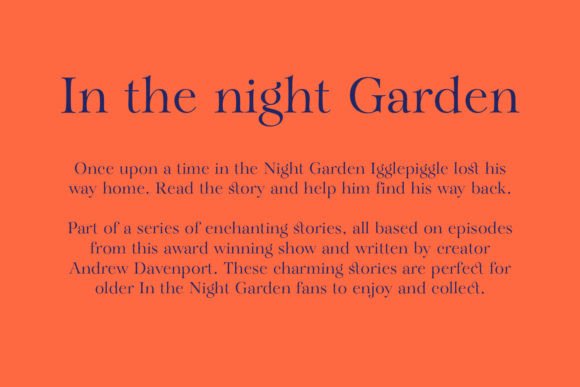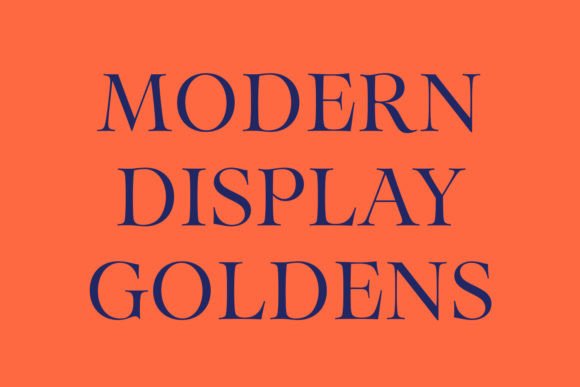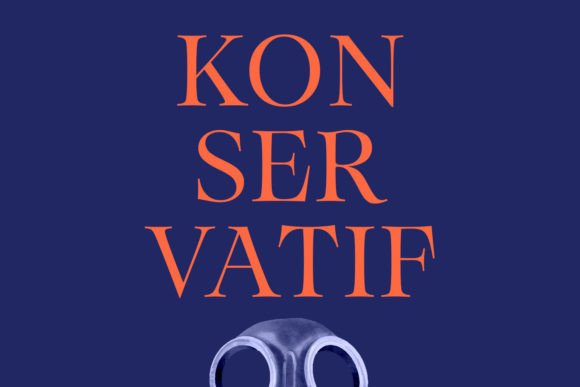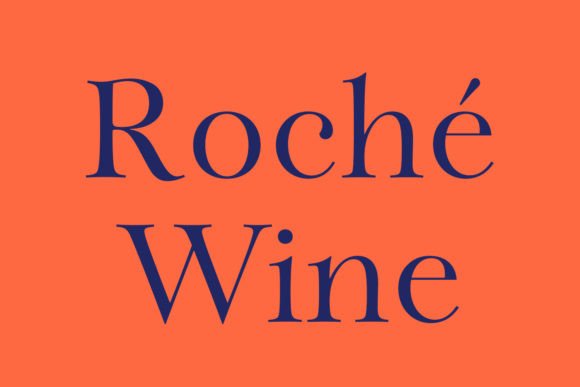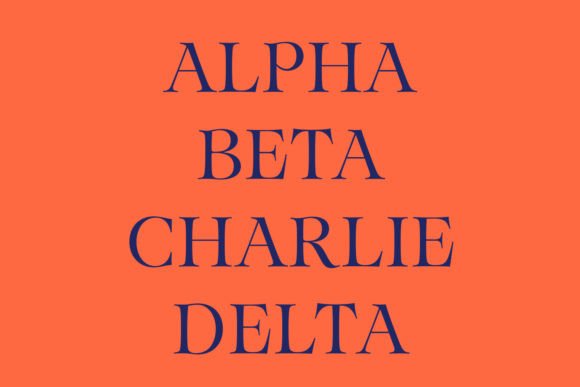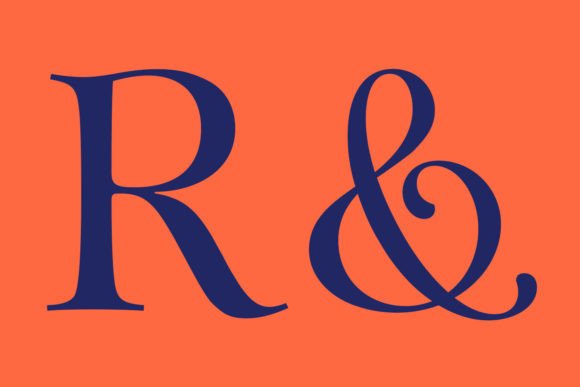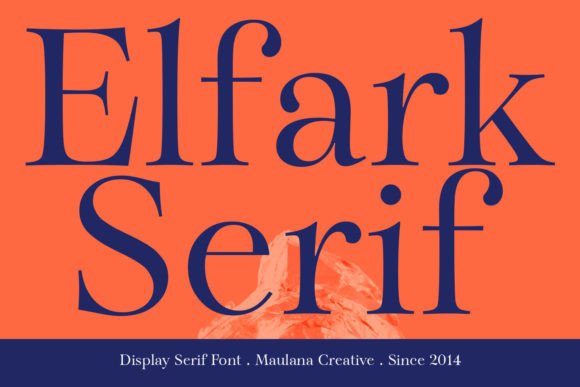
Introducing Elfark Font: Elevate Your Designs with Elegance and Refinement
In the world of typography, fonts play a crucial role in conveying the tone and personality of a design. For designers and crafters seeking a classy and sophisticated typeface, Elfark Font is an excellent choice. This elegant serif font is designed to exude refinement and poise, making it perfect for a wide range of design projects, from branding and advertising to editorial layouts and digital media.
The Characteristics of Elfark Font
Elfark Font boasts clean lines, balanced proportions, and a touch of sophistication, making it a versatile typeface for various design applications. Its serif design adds a level of classic elegance, while its refined features ensure that it remains legible and readable. Whether you’re working on a luxury brand identity, a high-end editorial layout, or a sophisticated digital project, Elfark Font is sure to make a lasting impression.
Key Features of Elfark Font
- Clean Lines: Elfark Font features clean lines that provide a crisp and modern look, making it perfect for designs that require a touch of sophistication.
- Balanced Proportions: The font’s balanced proportions ensure that it remains legible and readable, even at smaller font sizes.
- Sophisticated Design: Elfark Font’s serif design and refined features add a level of elegance and refinement, making it perfect for high-end designs.
- Versatility: This typeface is versatile and can be used for a wide range of design projects, from branding and advertising to editorial layouts and digital media.
Why Choose Elfark Font?
For designers and crafters seeking a typeface that exudes elegance and refinement, Elfark Font is an excellent choice. Here are just a few reasons why:
- Timeless Beauty: Elfark Font’s classic design ensures that it remains timeless, making it a great choice for designs that require a sense of enduring elegance.
- Attention-Grabbing: The font’s sophisticated design and refined features are sure to capture attention and leave a lasting impression.
- Easy to Read: Elfark Font’s clean lines and balanced proportions make it easy to read, even at smaller font sizes.
- Highly Versatile: This typeface can be used for a wide range of design projects, making it a great addition to any designer’s toolkit.
Using Elfark Font in Your Designs
Elfark Font is easy to use and can be incorporated into a wide range of design projects. Here are a few tips for using this elegant typeface:
- Pair with Other Fonts: Elfark Font pairs well with other fonts, making it easy to create visually appealing typography.
- Experiment with Font Sizes: The font’s clean lines and balanced proportions make it suitable for use at a range of font sizes.
- Use for Headings and Body Text: Elfark Font is suitable for use as both headings and body text, making it a great choice for editorial layouts and digital media.
In conclusion, Elfark Font is a classy serif font that exudes elegance and refinement. Its clean lines, balanced proportions, and sophisticated design make it a versatile typeface for various design projects. Whether you’re working on a luxury brand identity, a high-end editorial layout, or a sophisticated digital project, Elfark Font is sure to make a lasting impression. With its timeless beauty, attention-grabbing design, and ease of use, Elfark Font is a great addition to any designer’s toolkit.
Embracing the Charm of Elfark Font
Embracing the charm of Elfark Font is easy, and designers and crafters can elevate their creations with this sophisticated typeface. Whether you’re seeking to add a touch of elegance to your designs or create a lasting impression, Elfark Font is an excellent choice. So why not give Elfark Font a try and experience the benefits of this beautiful typeface for yourself?